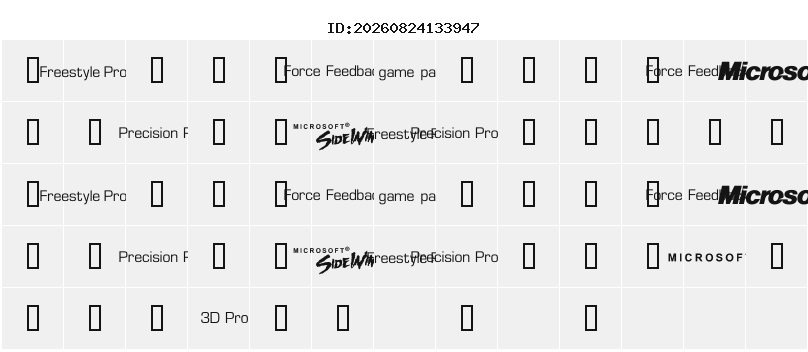
SWlogo Preview
• Font Name: SWlogo
• Full Font Name: SWlogo
• Copyright: Designed by Neal Osotio
About SWlogo.ttf
SWlogo.ttf is a modern, elegant sans-serif font designed for ultimate readability and visual harmony. Perfect for branding, headlines, web design, and print materials.